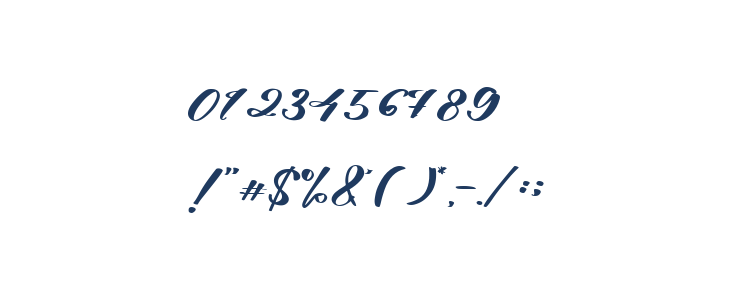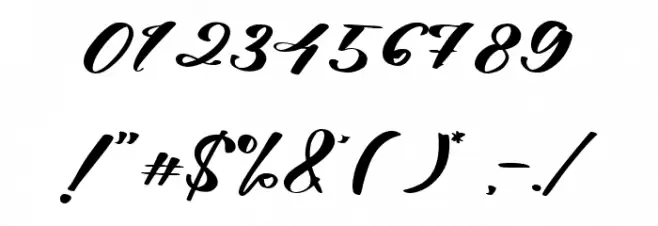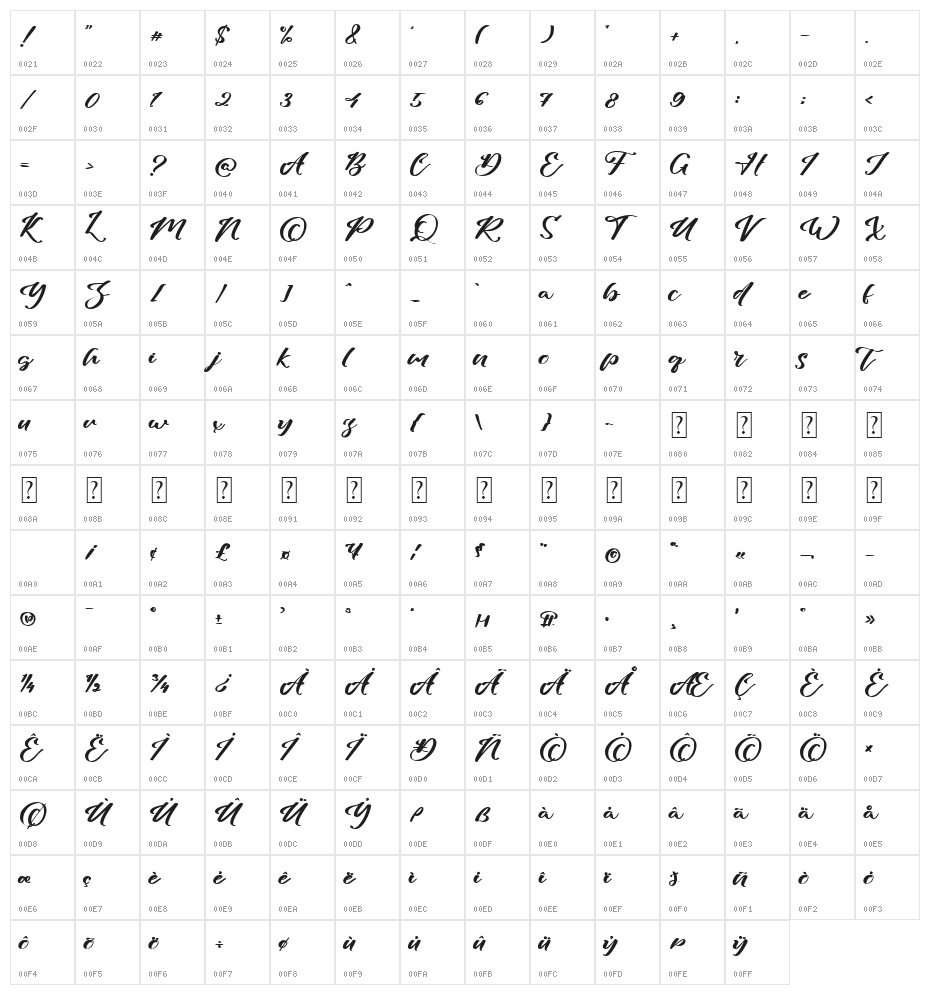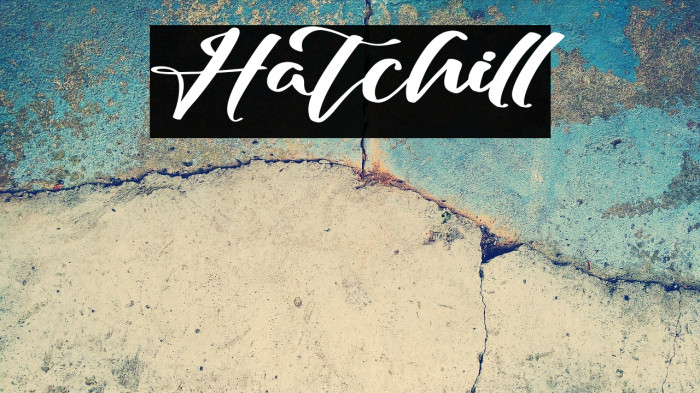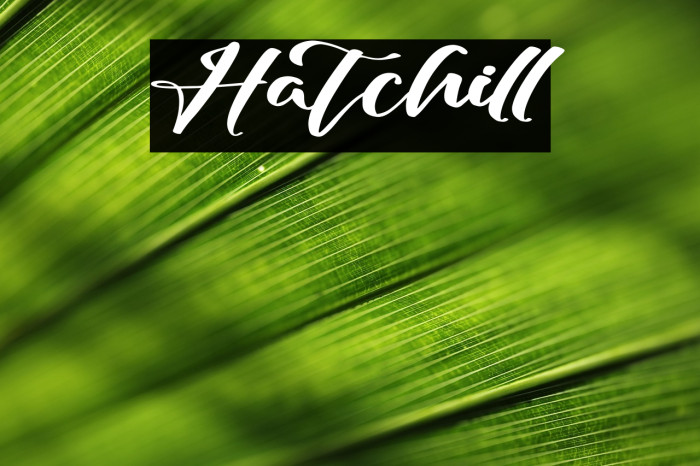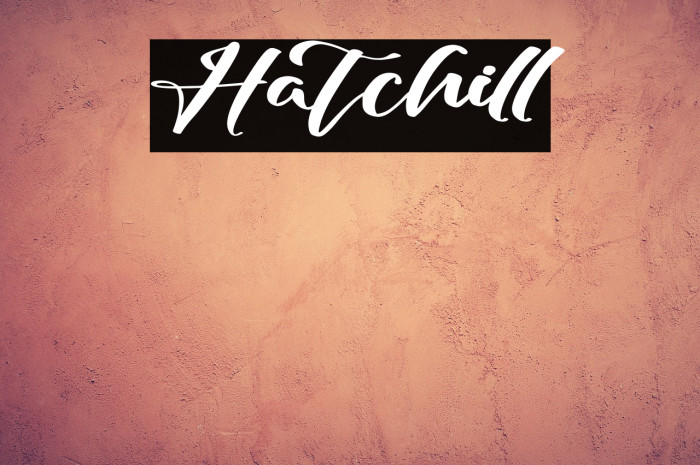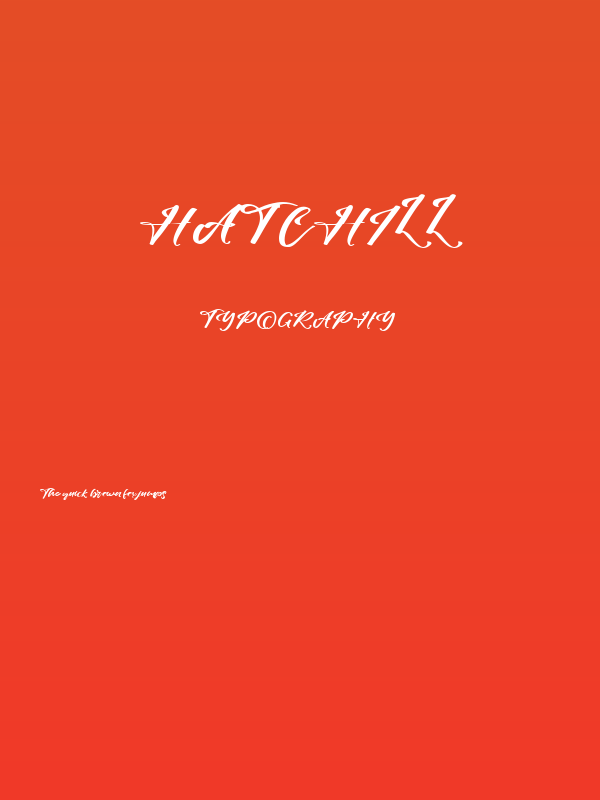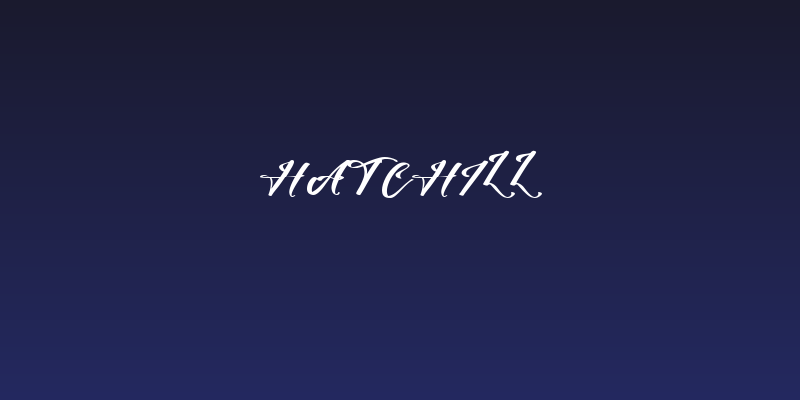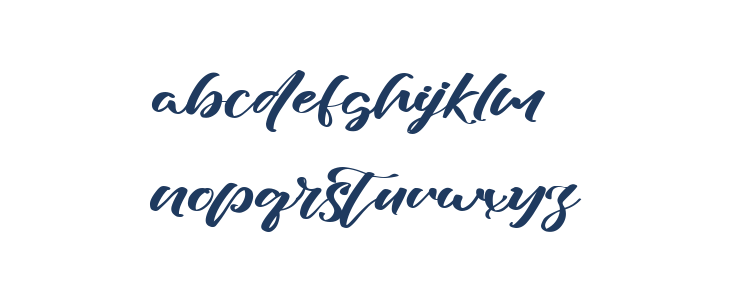
Hatchill Font
Hatchill Description
This font exudes a lively and elegant script style, characterized by its fluid and connected letterforms. The uppercase letters are bold and sweeping, with a graceful flow that adds a sense of movement and sophistication. The lowercase letters maintain this fluidity, with some characters featuring distinctive loops and curves that enhance the font's decorative appeal. The numerals are consistent with the overall style, offering a cohesive look. Special characters are thoughtfully designed to match the script's aesthetic, making it versatile for various uses. The font's overall appearance is both modern and classic, suitable for projects that require a touch of elegance and flair.